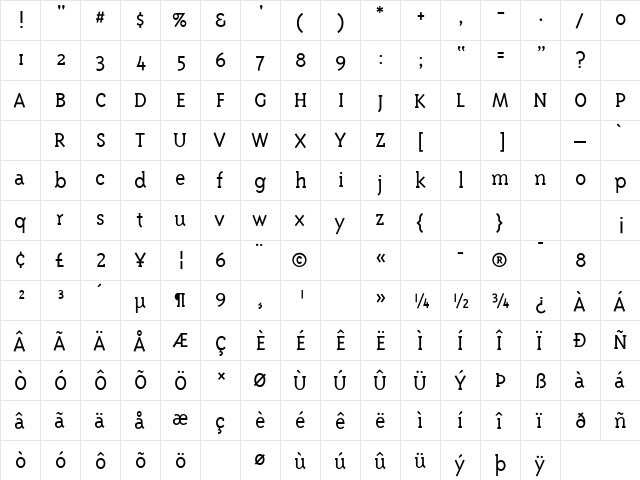
TriplexSerif-Light Light
Design Context for TriplexSerif-Light Typeface
TriplexSerif-Light carries the refined structure of traditional serif typography, with bracketed terminals and considered proportions that communicate credibility and craft. The delicate stroke weight brings airiness and refinement to layouts.
Pro Tip: Use TriplexSerif-Light with generous line-spacing for the most refined reading experience — its light weight benefits from room between lines.